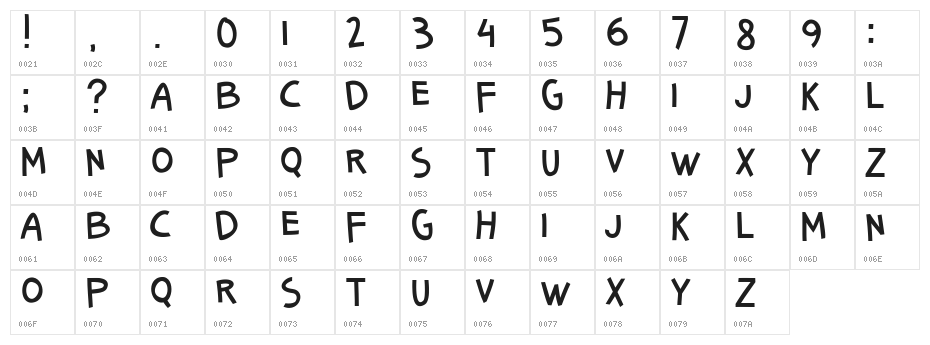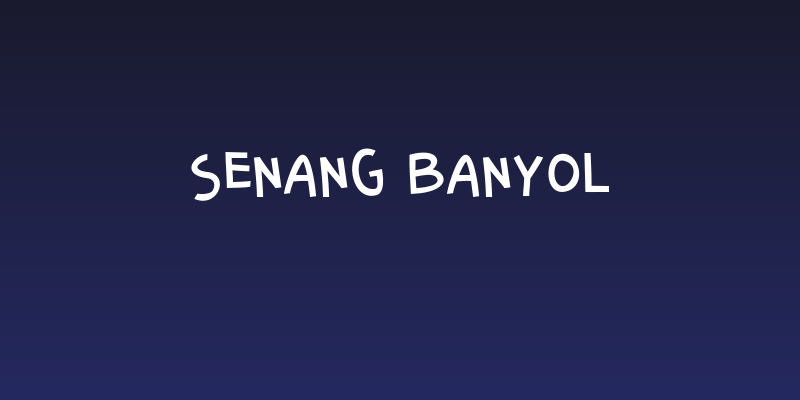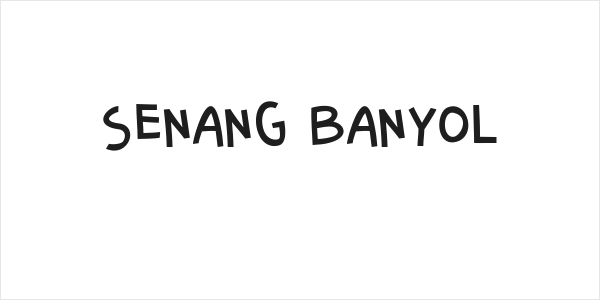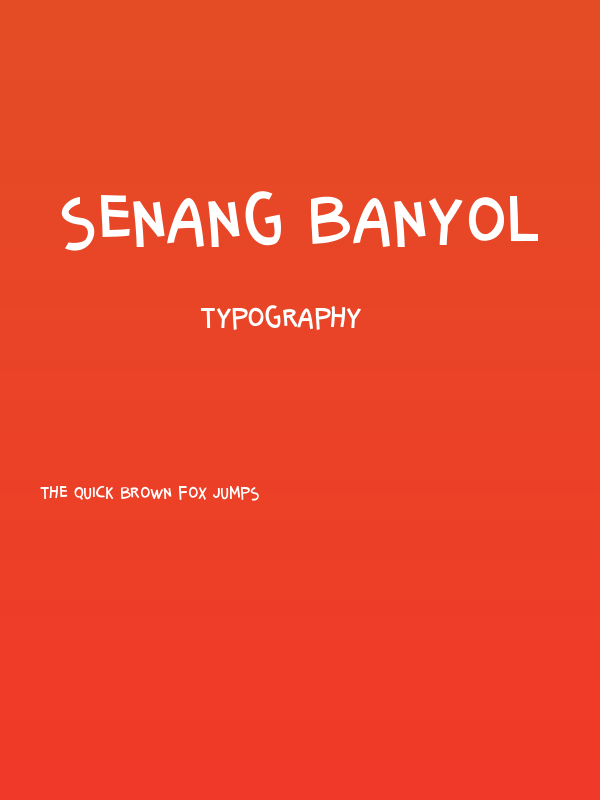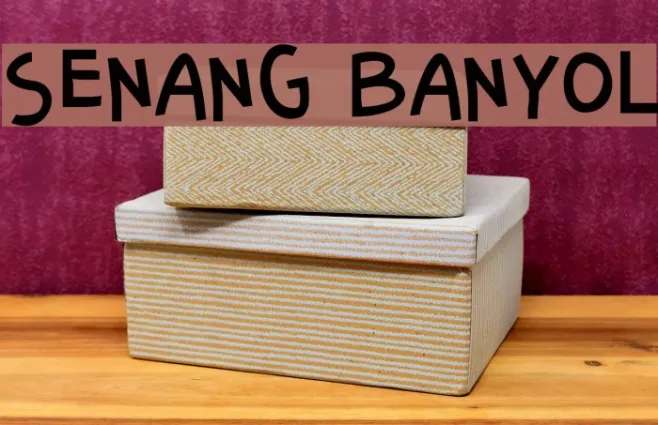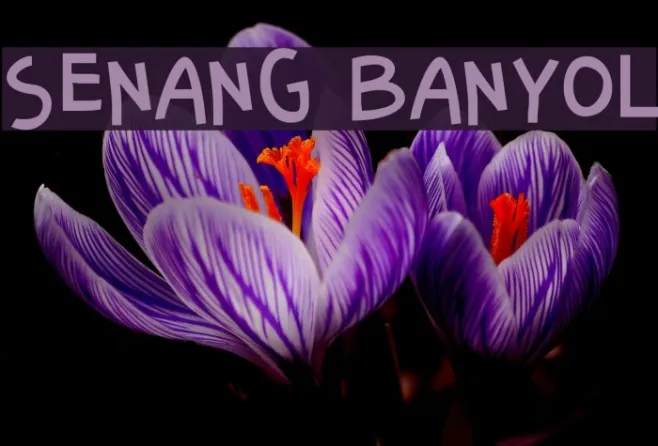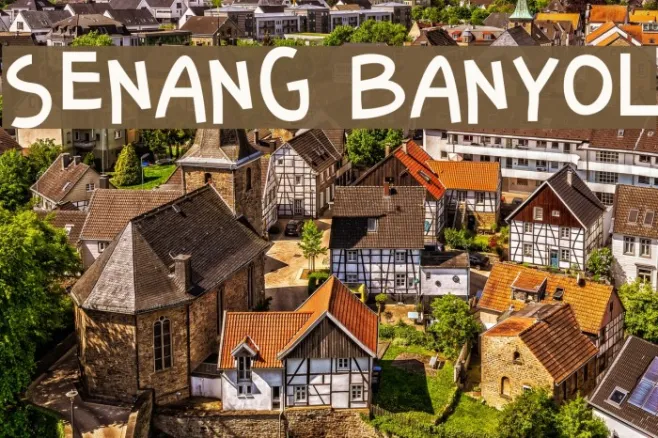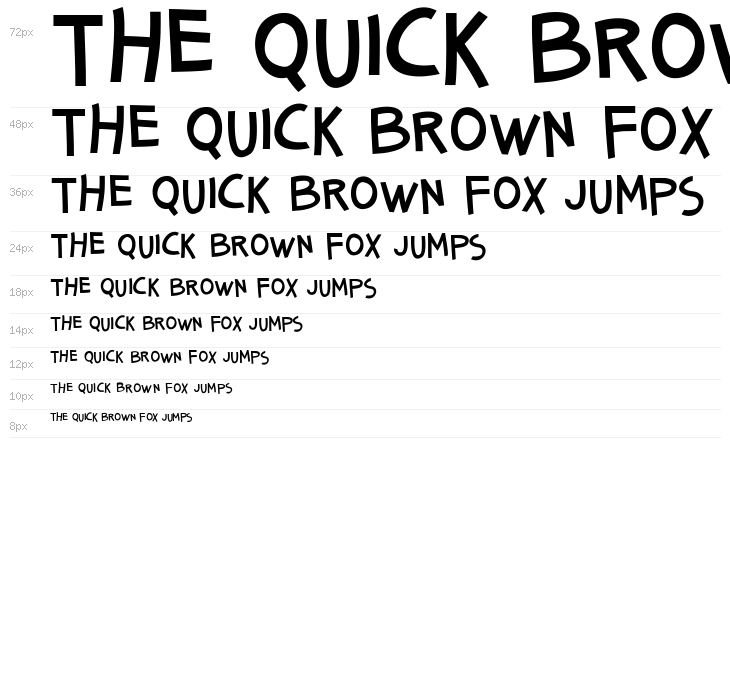
Senang Banyol Font
Senang Banyol Description
This playful and whimsical font features a hand-drawn aesthetic with irregular, slightly tilted characters that convey a sense of fun and informality. The uppercase and lowercase letters maintain a consistent style, with rounded edges and a casual flow. The numbers and special characters follow the same playful design, making the font versatile for various creative projects. The overall appearance is approachable and friendly, ideal for designs that aim to be engaging and lighthearted.
| Proposed Projects | Ideal for children's books, comic strips, playful branding, and casual invitations. |